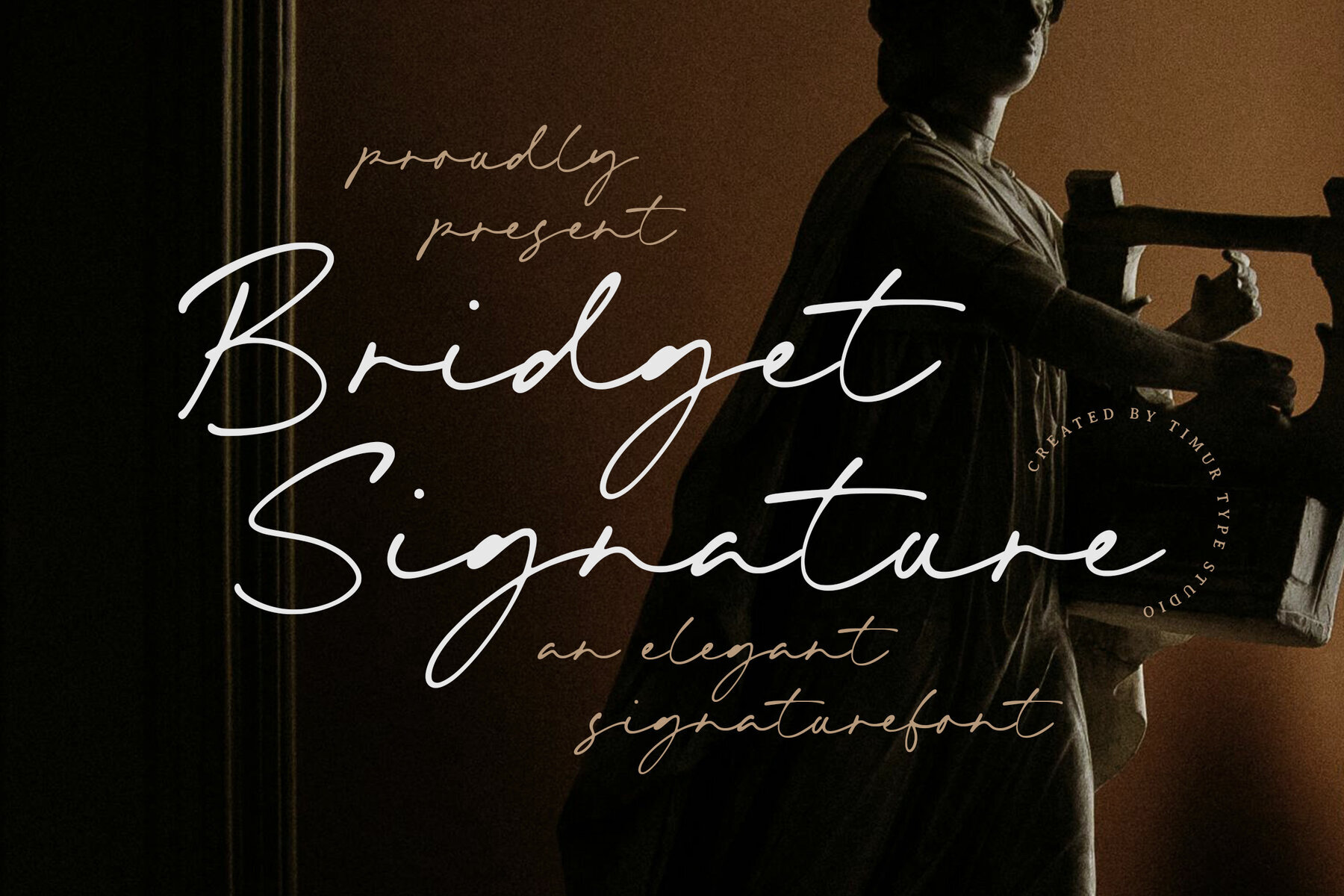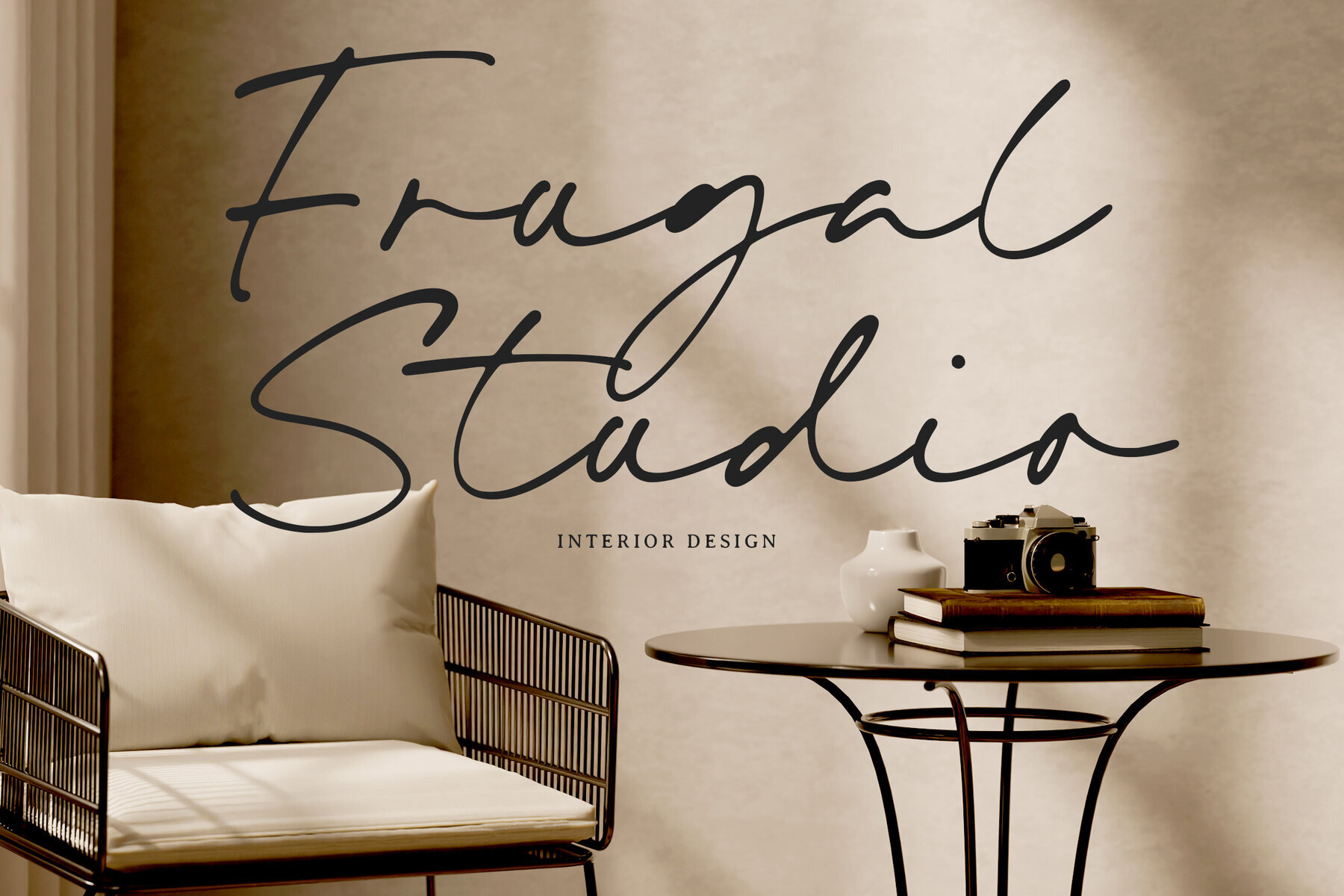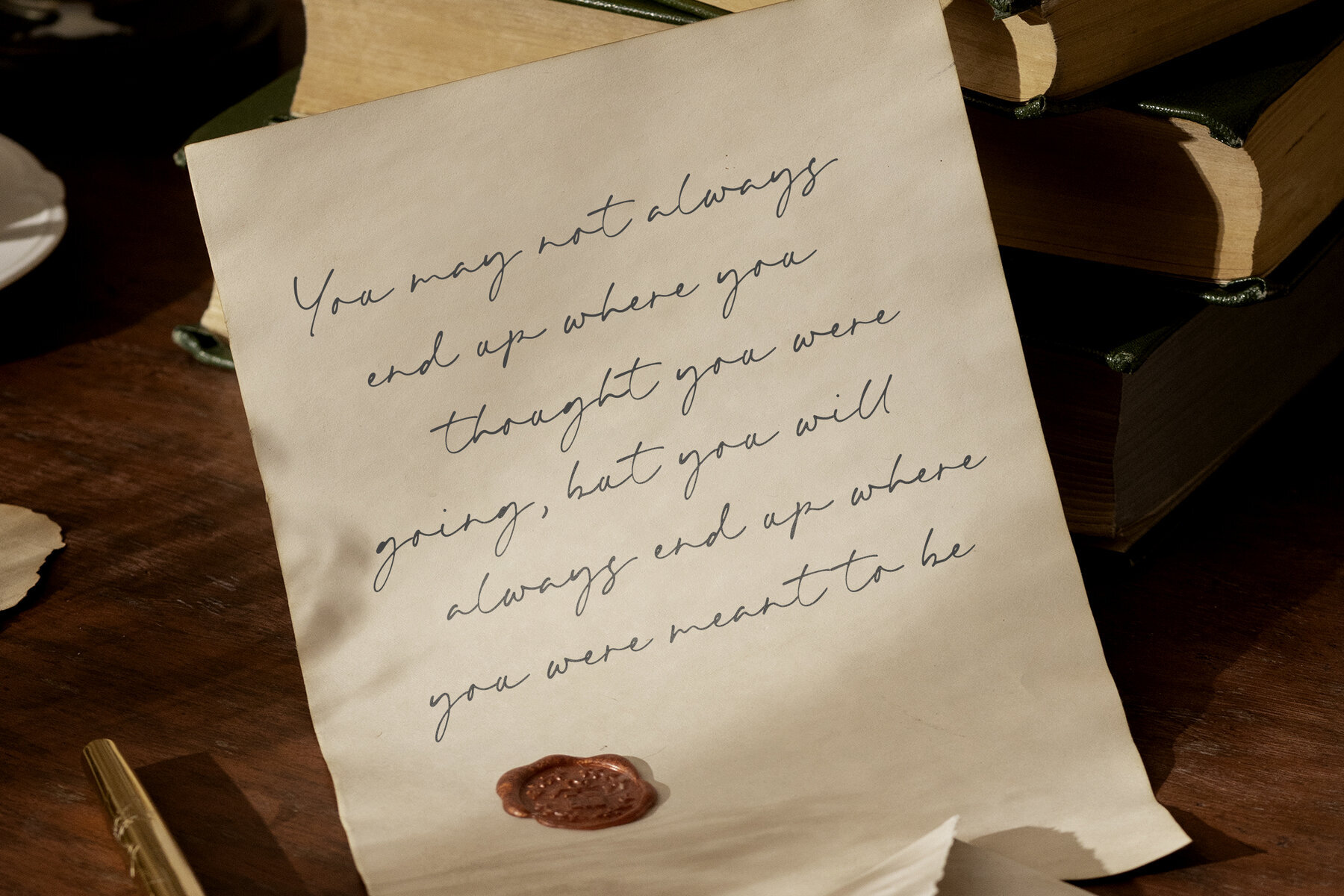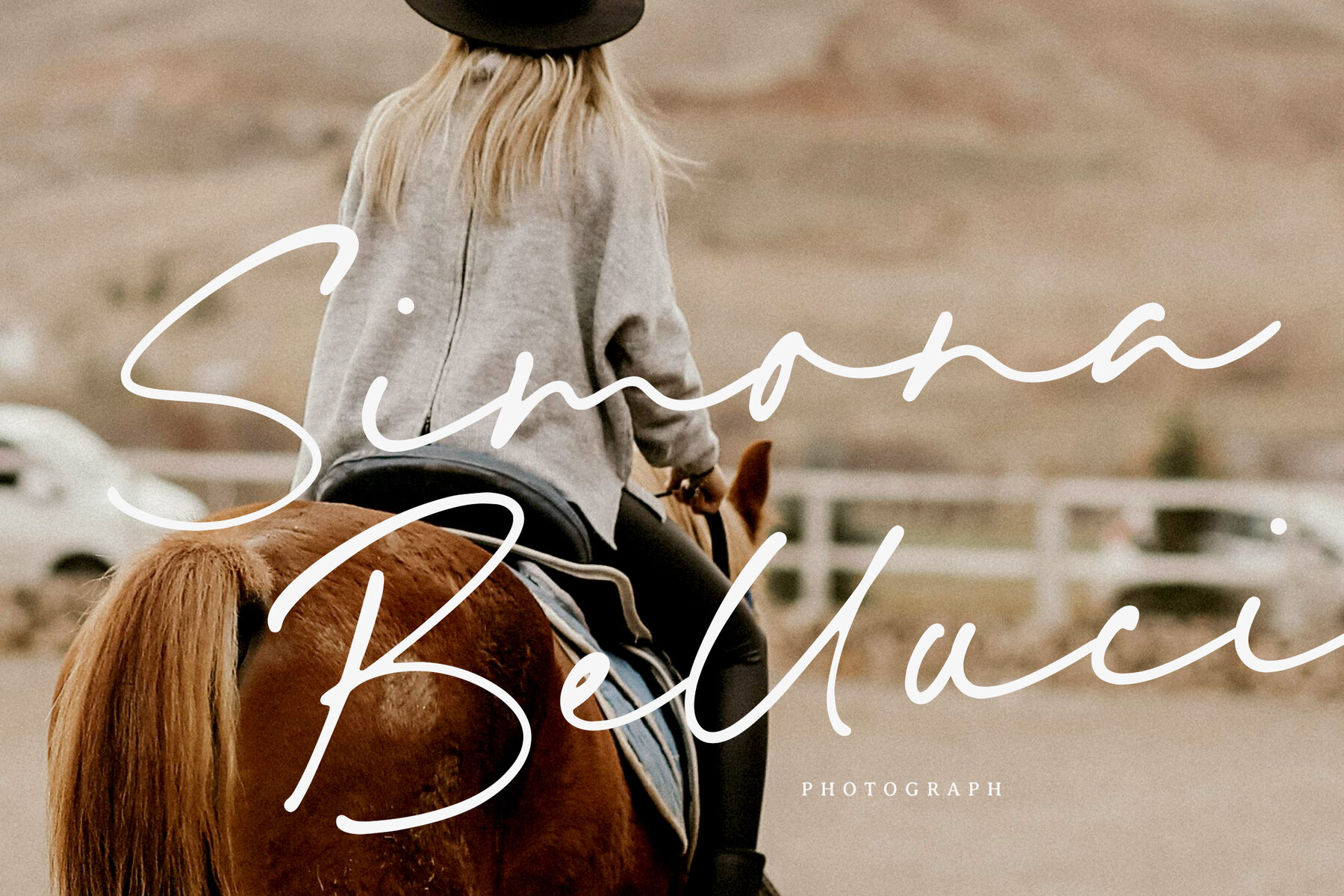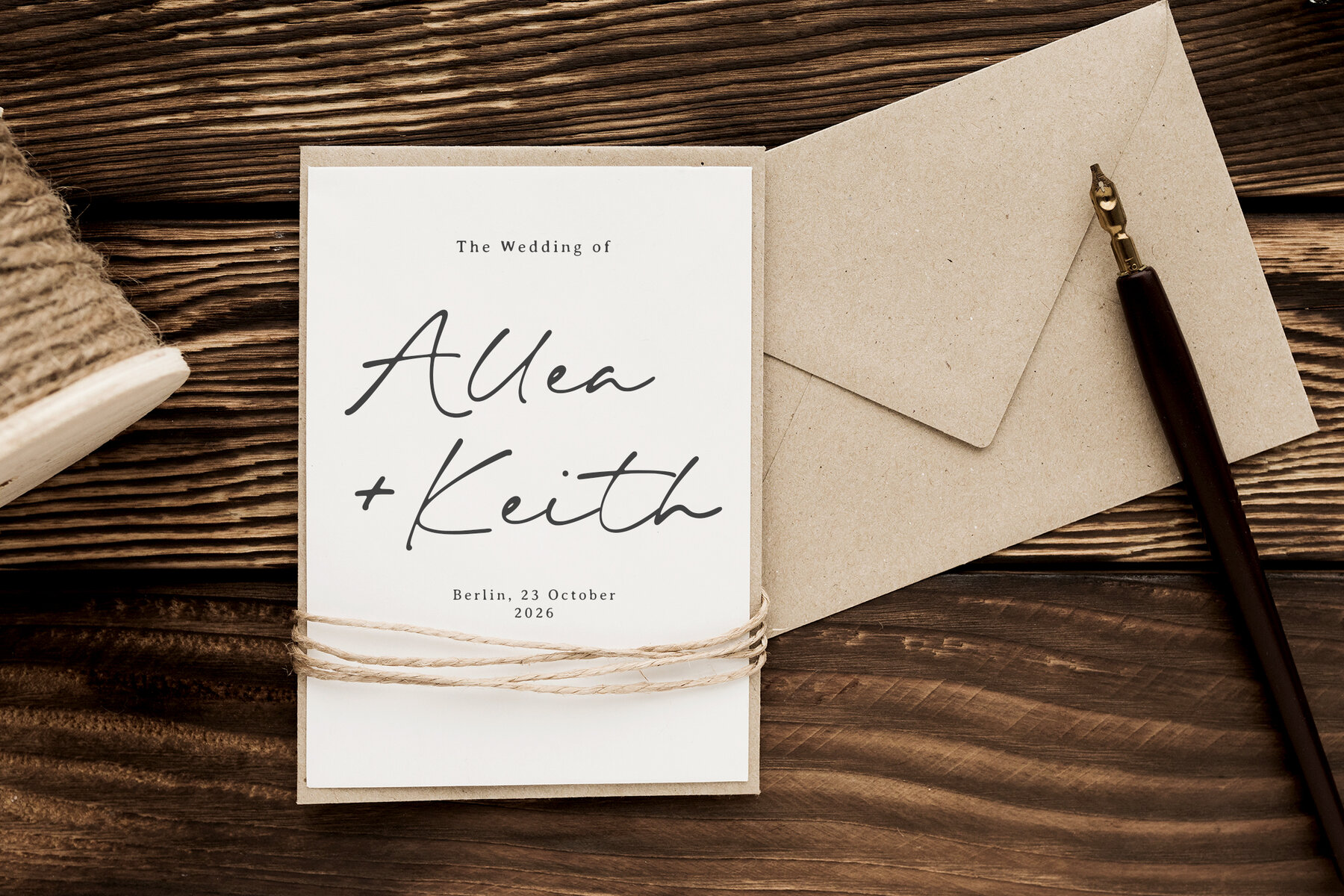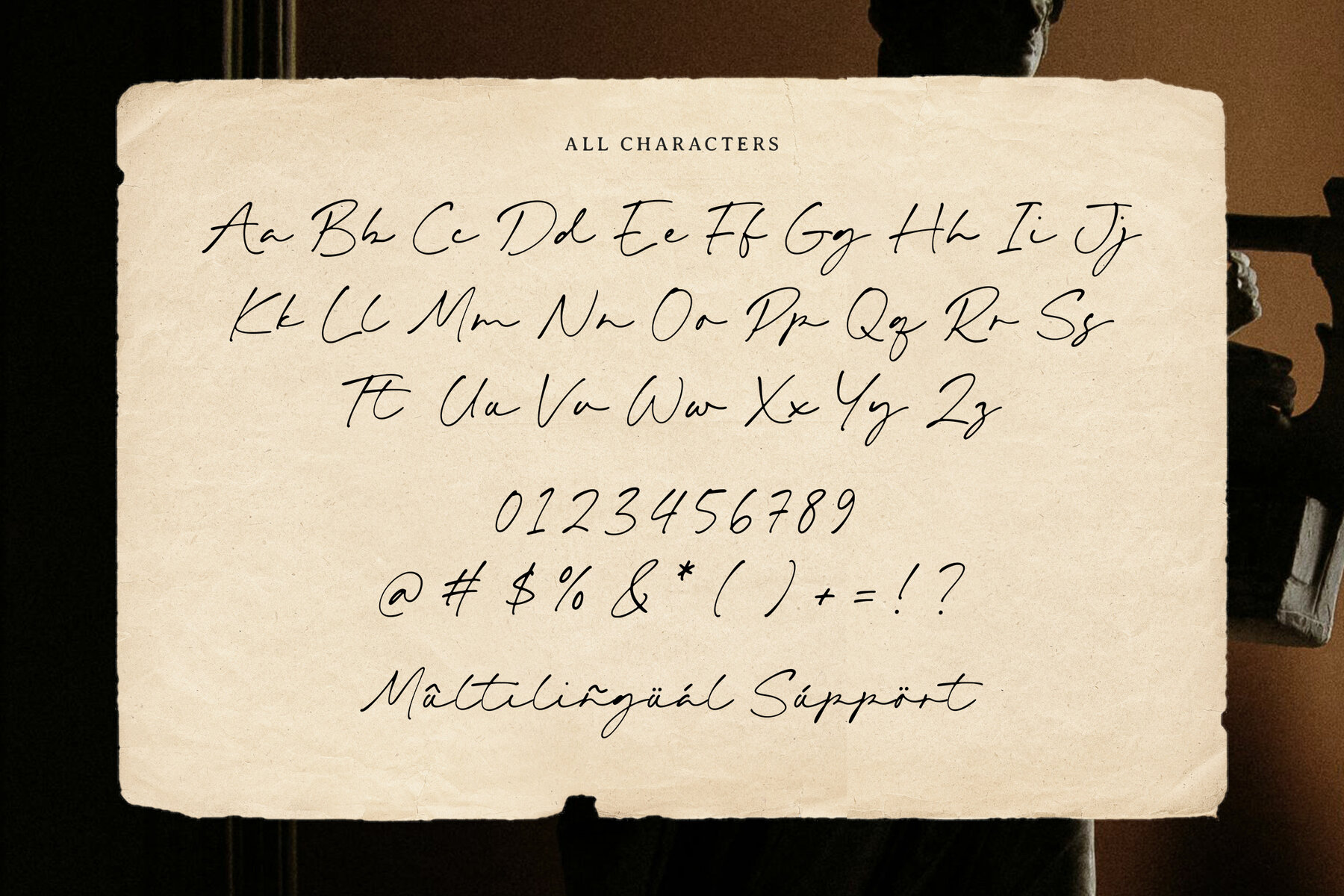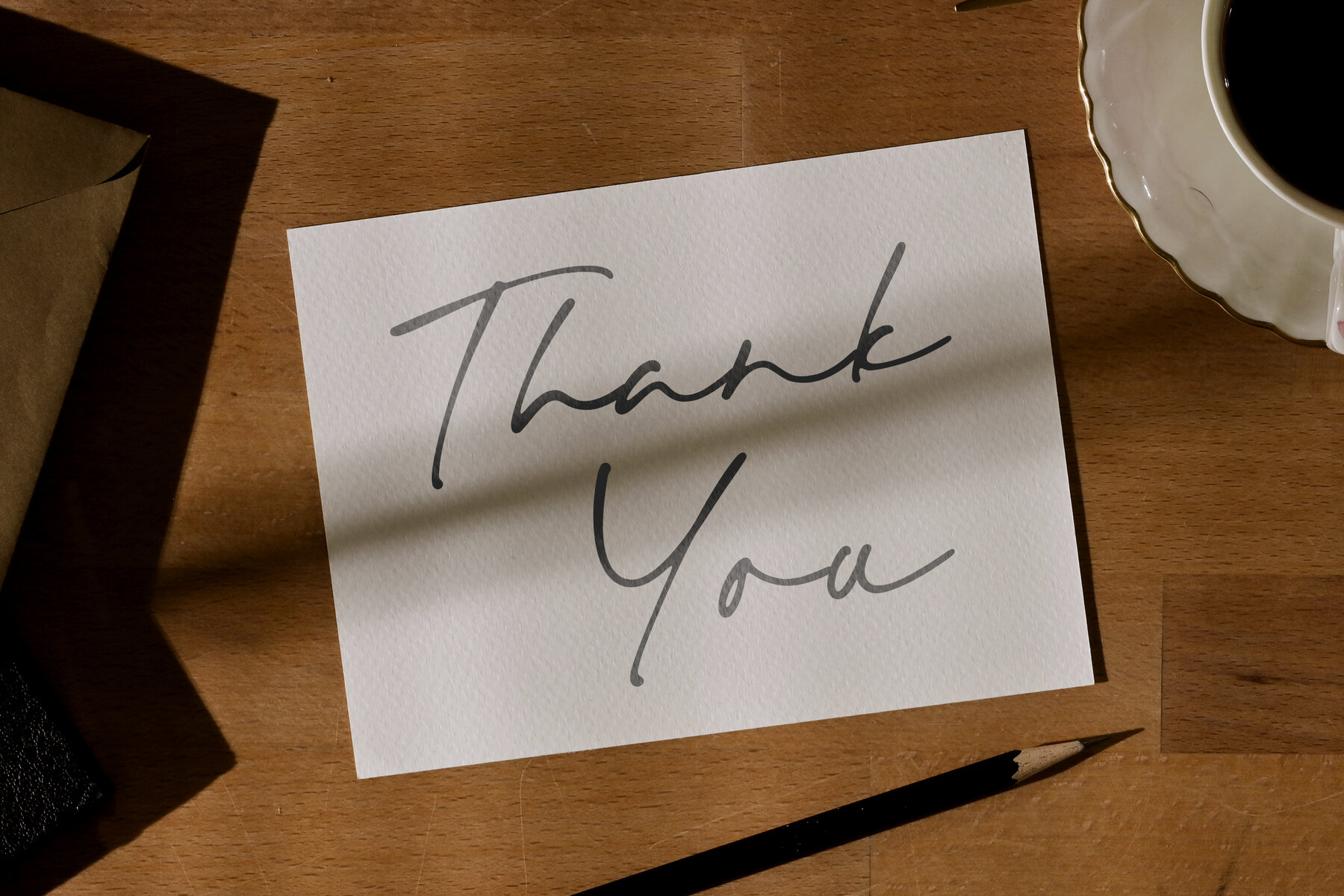
Bridget Signature Font
Bridget Signature
Bridget Signature is an elegant script font that beautifully captures the fluidity of natural handwriting. With its smooth curves and delicate strokes, this font exudes sophistication and charm. It’s an ideal choice for designers looking to enhance logos, branding, and invitations with a touch of luxury.
Perfect for projects that require a stylish and refined appearance, Bridget Signature adds a unique flair to any design. Its versatility is further enhanced by its support for multilingual characters, making it suitable for a global audience.